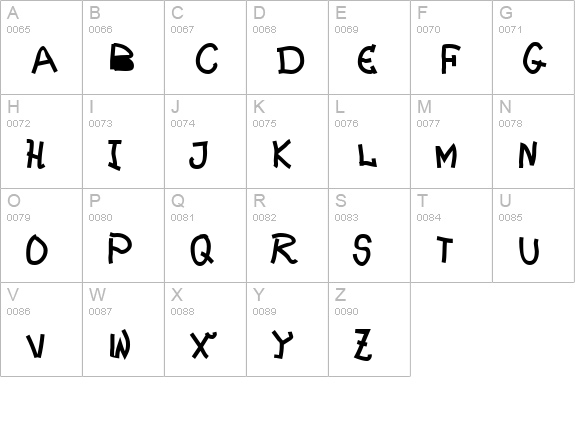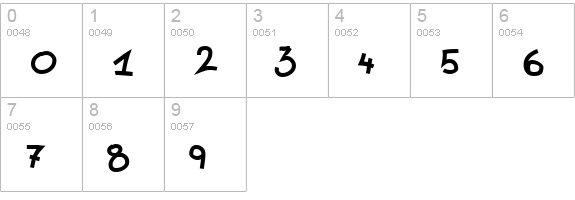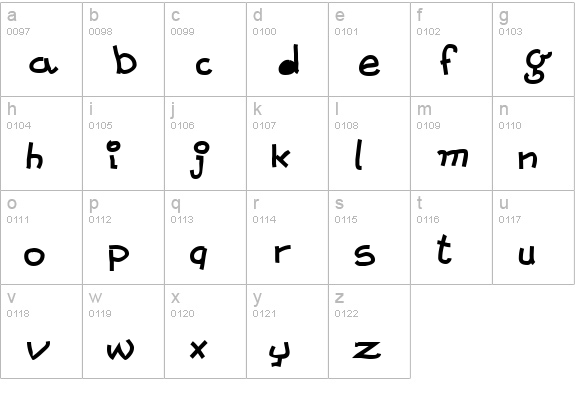
Kaesefuesse font is an exquisite and captivating typeface that will elevate your design projects to new heights. With its unique and stylish letterforms, this font exudes a sense of modernity and sophistication. The beauty of Kaesefuesse font lies not only in its aesthetics but also in its versatility. Whether you are designing a logo, creating a poster, or crafting a website, this font will effortlessly adapt to any context and deliver a visually pleasing result. One of the standout features of Kaesefuesse font is its wide range of characters and ligatures, allowing you to experiment with various letter combinations and create truly customized typographic compositions. From elegant titles to eye-catching headlines, this font will always make a statement. And the best part? Kaesefuesse font is free! Yes, you read that right. This stunning font is freely available to download at FontsMarket.com. So, you can add this gem to your font collection without breaking the bank. Whether you are a professional designer or a passionate hobbyist, Kaesefuesse font is the perfect addition to your toolkit. Its seamless blend of sophistication and versatility will help you bring your creative visions to life, effortlessly capturing the attention of your audience. So, what are you waiting for? Download Kaesefuesse font today from FontsMarket.com and unlock a world of endless typographic possibilities. Transform your designs into visual masterpieces with this stunning font that is just a few clicks away.